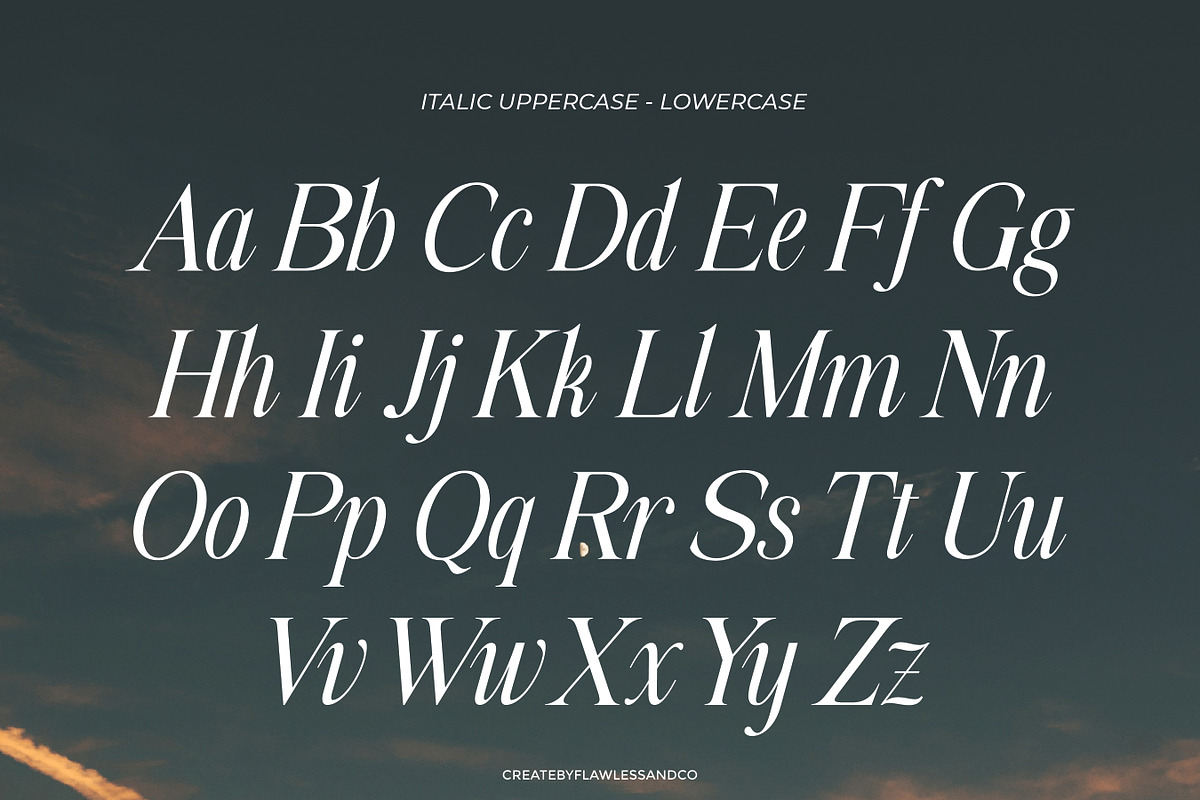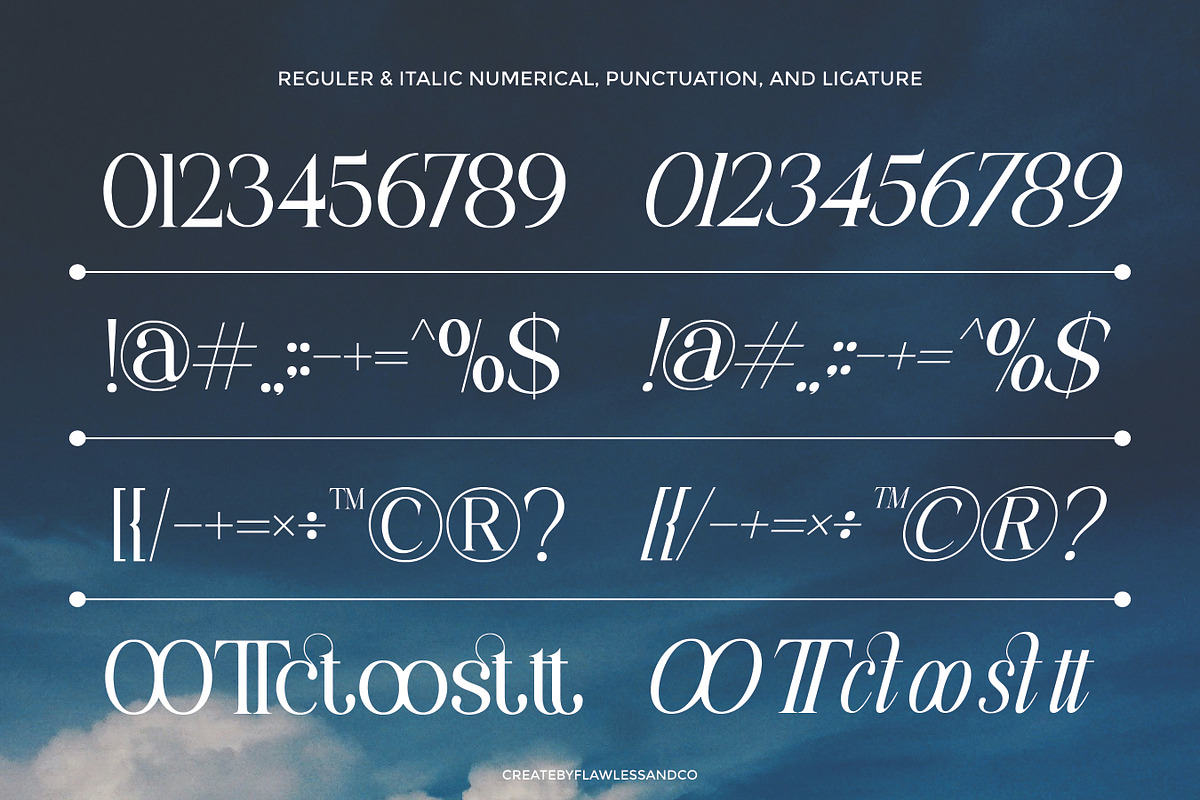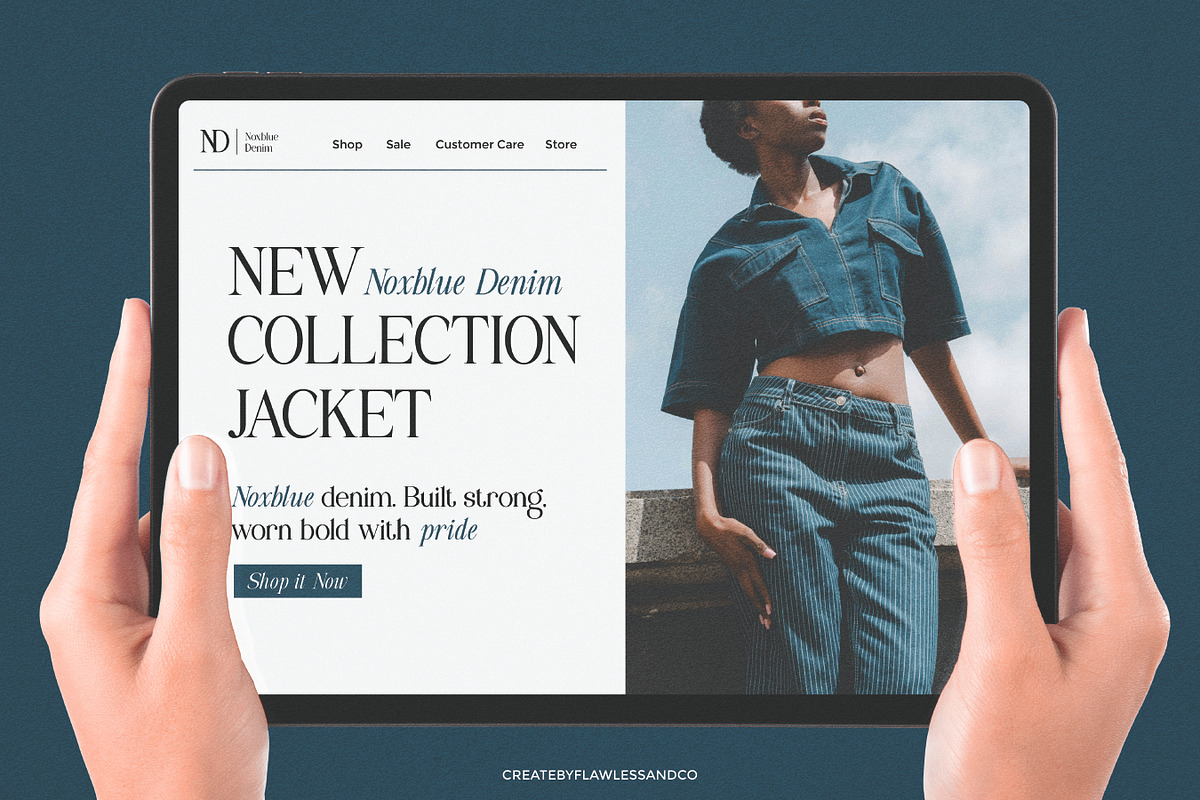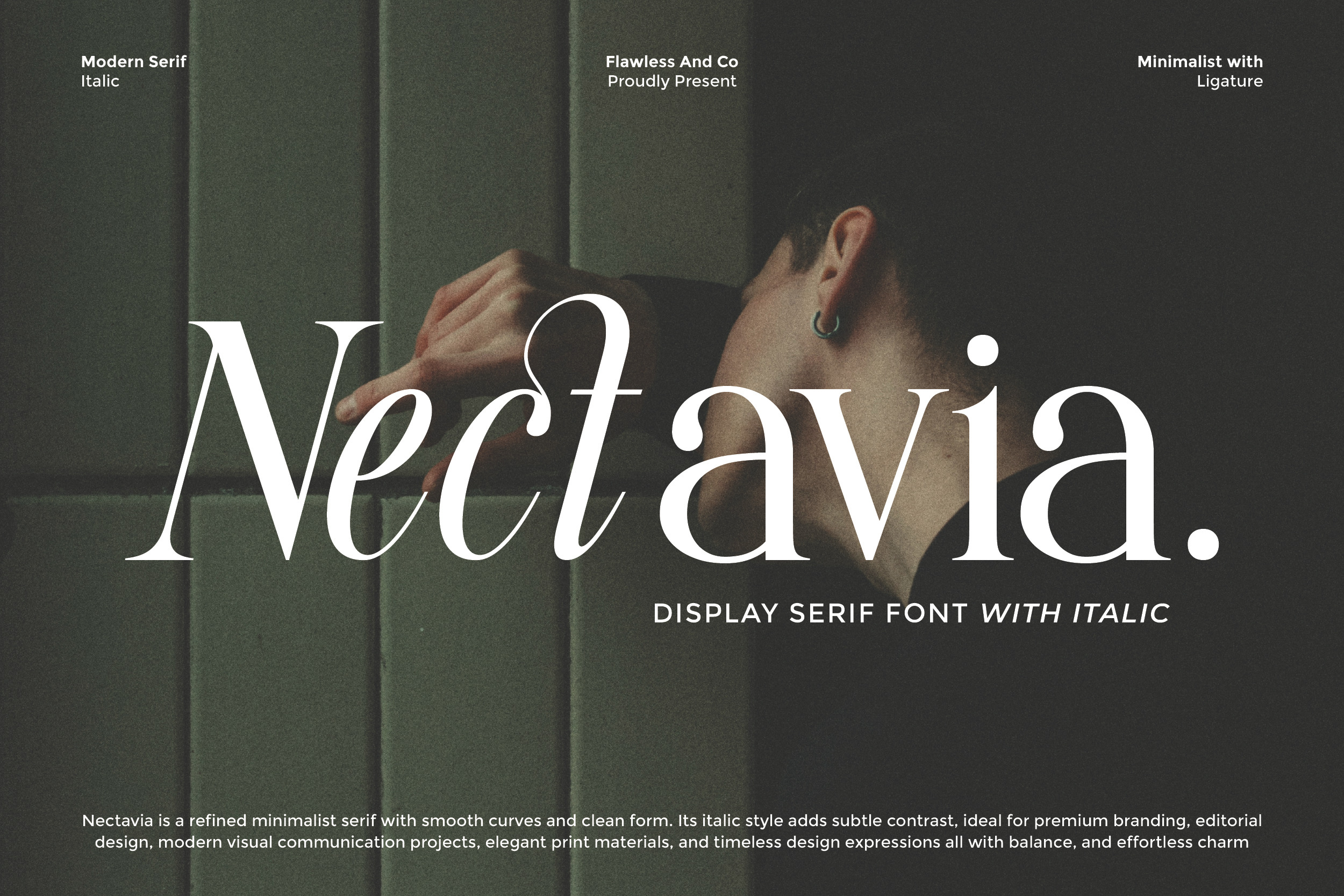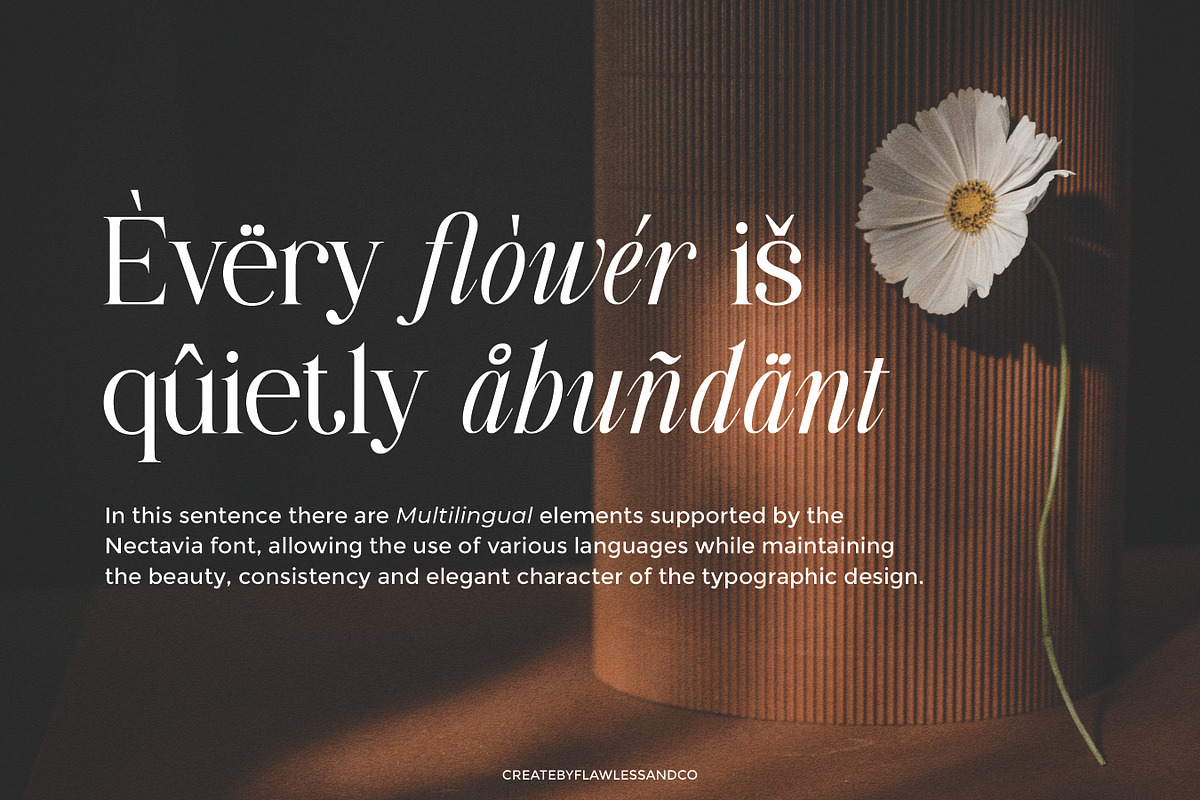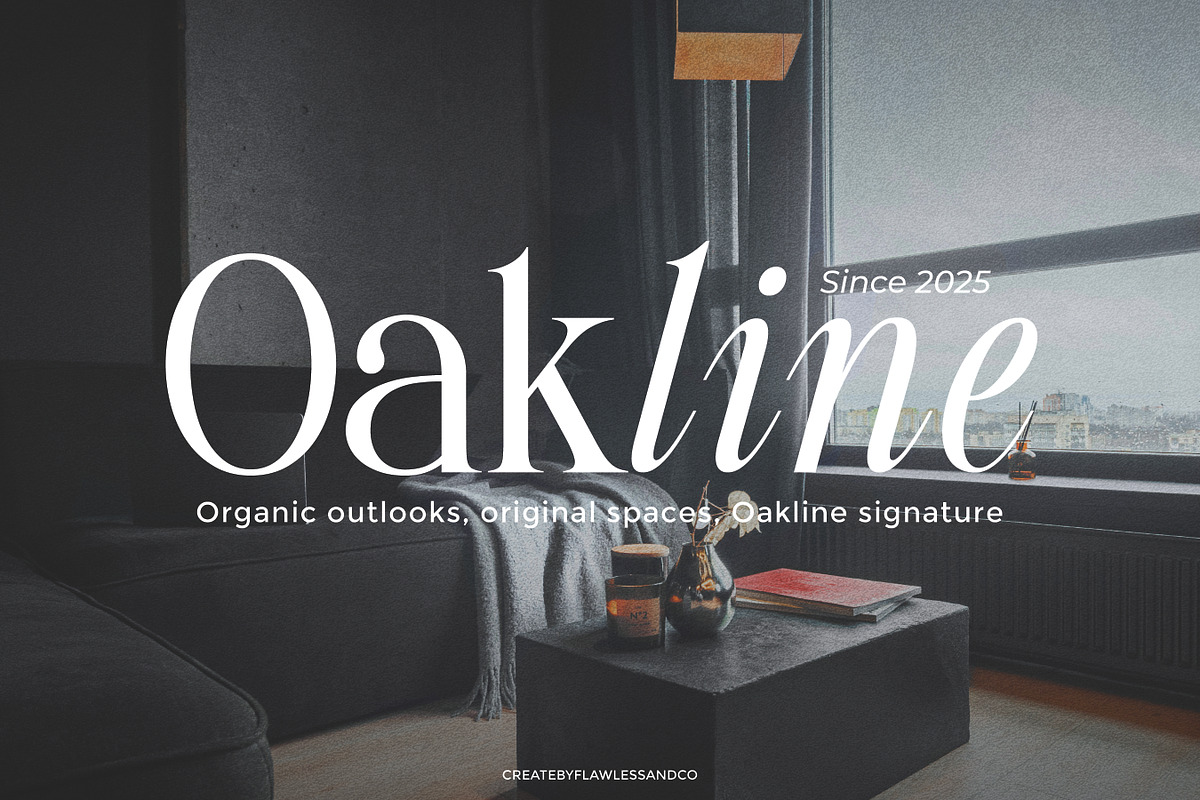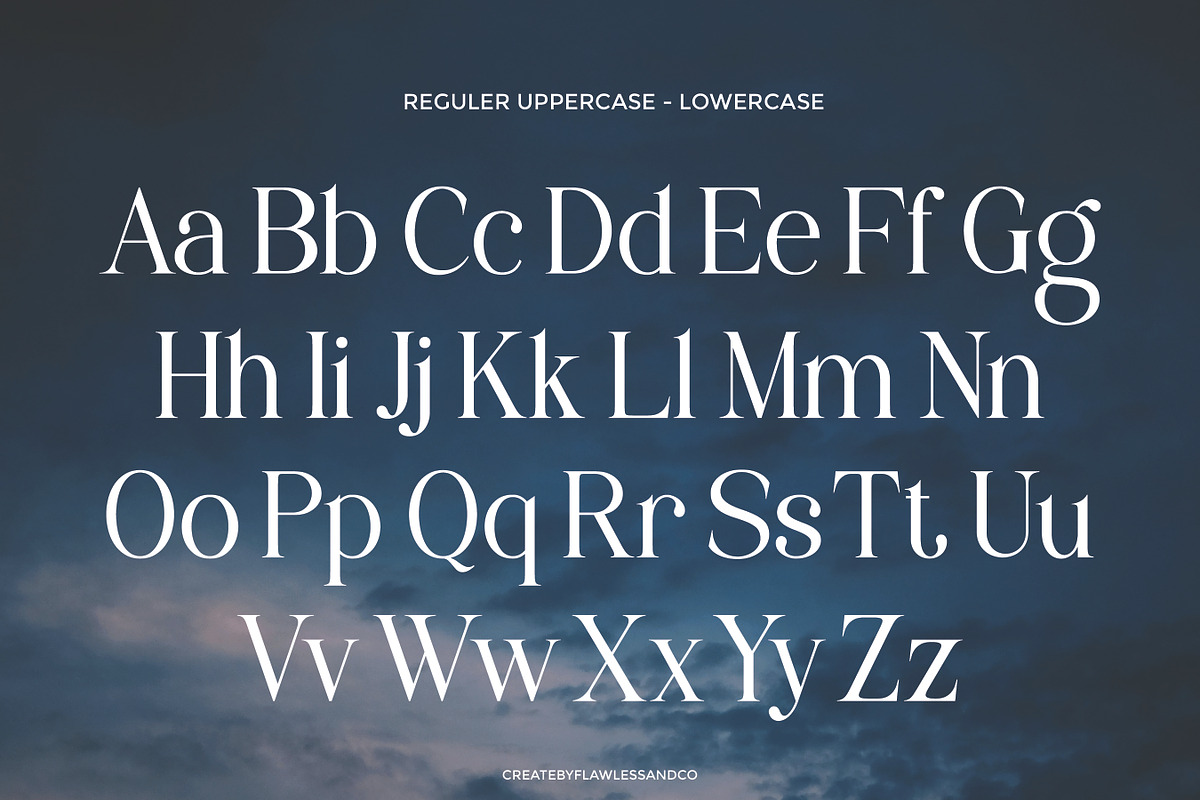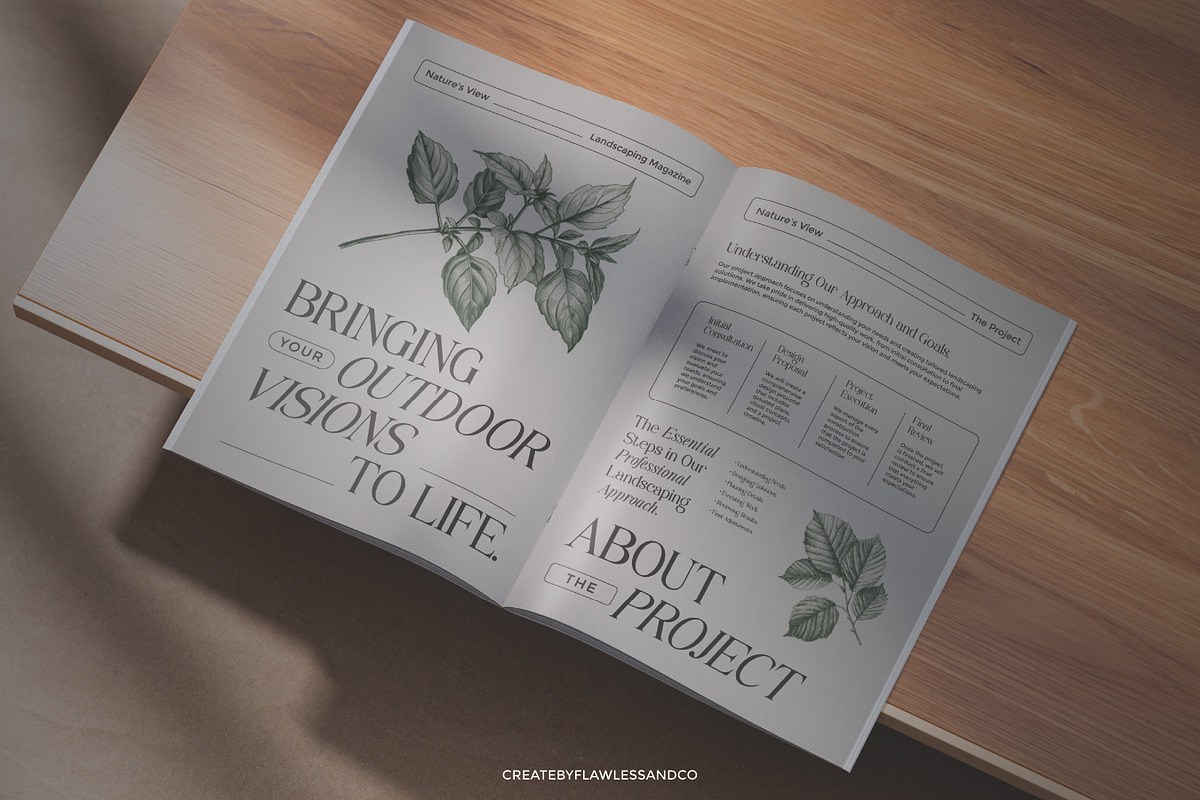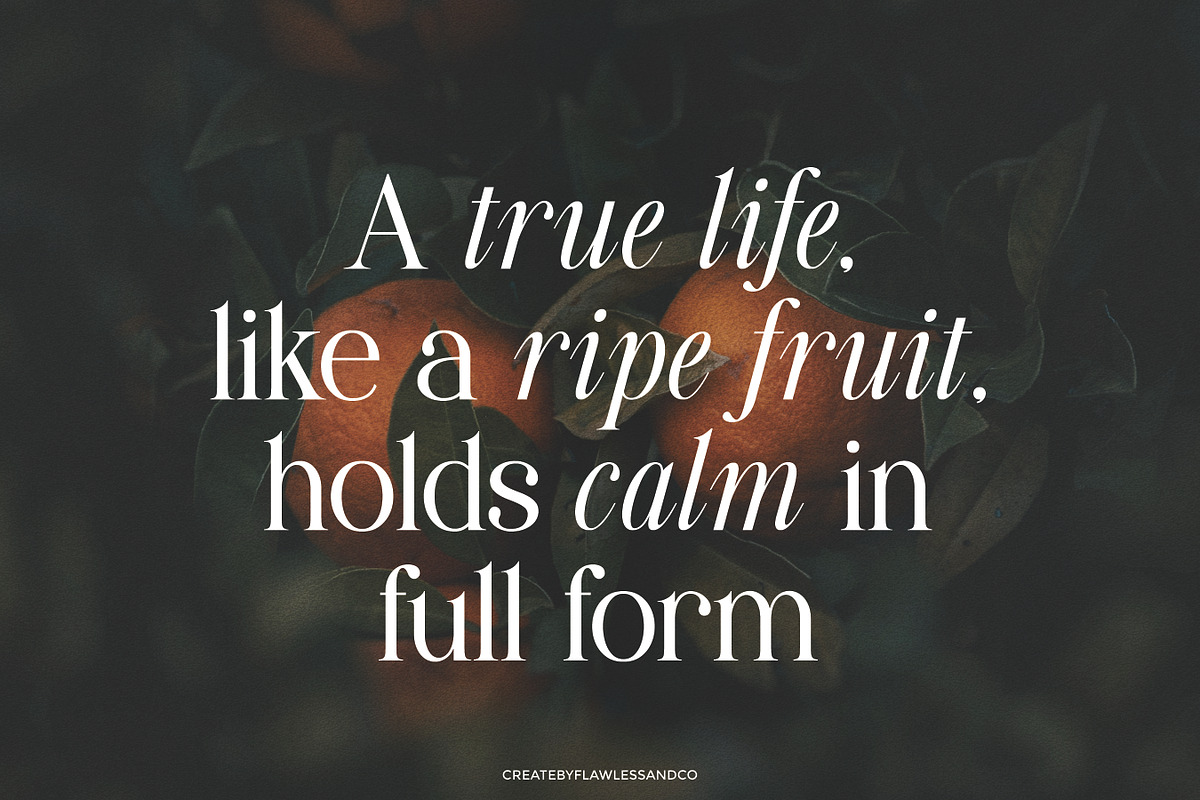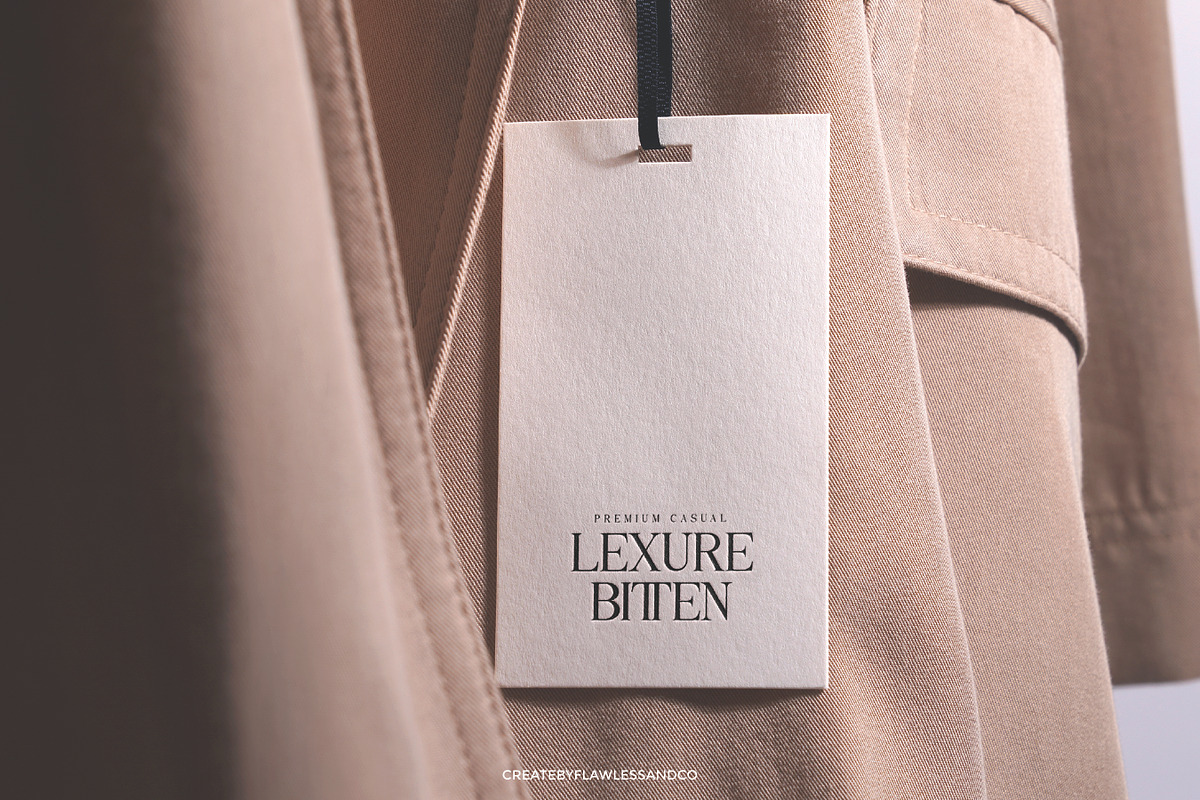
Nectavia - Display Serif Font
Nectavia is a refined display serif with smooth curves, elegant proportions, and a modern minimalist aesthetic. Designed with a balance of sophistication and versatility, this font blends timeless serif tradition with contemporary flair. Its italic variation introduces subtle contrast, making it perfect for premium branding, editorial layouts, packaging design, wedding concepts, and luxury visual projects. Whether used for bold headlines, stylish logos, or elegant print applications, Nectavia delivers a sense of class, harmony, and effortless charm. With its clean form and graceful details, this font is crafted to elevate design expressions into something truly iconic.
Alternates & Ligatures
Who Should Use Nectavia?
Nectavia is designed for creatives, brands, and professionals who want to bring a touch of elegance and timeless beauty to their work. It’s the perfect choice for:
Luxury brands that need refined, stylish typography
Wedding designers seeking a romantic yet modern font
Editorial and magazine creators aiming for sophisticated layouts
Logo and brand identity designers looking for versatile elegance
Packaging designers who want premium, high-impact lettering
Social media creators who want stylish and engaging visuals
A Must-Have Font for "Brand and Logo" Creators and Designers
Nectavia is more than just a typeface — it’s a design asset every brand and logo creator should have. With its elegant shapes, refined details, and timeless charm, this font helps transform ideas into strong visual identities. Whether you’re building luxury brands, designing modern logos, or crafting high-end editorial projects, Nectavia gives your work a touch of sophistication that stands out.
Why Choose Nectavia for "Brand and Logo" Projects?
Nectavia offers a perfect blend of modern elegance and professional clarity, making it an ideal choice for branding and logo design. Its refined letterforms give your designs a sophisticated yet versatile look, adaptable to both luxury and contemporary projects. With Nectavia, you can create a strong brand presence that communicates trust, style, and timeless beauty.
Suitable For:
Brand identities and professional logo design
Luxury product packaging and premium stationery
Wedding invitations and elegant event materials
Editorial layouts, magazines, and book covers
Social media graphics and lifestyle branding
Business presentations and corporate identity projects